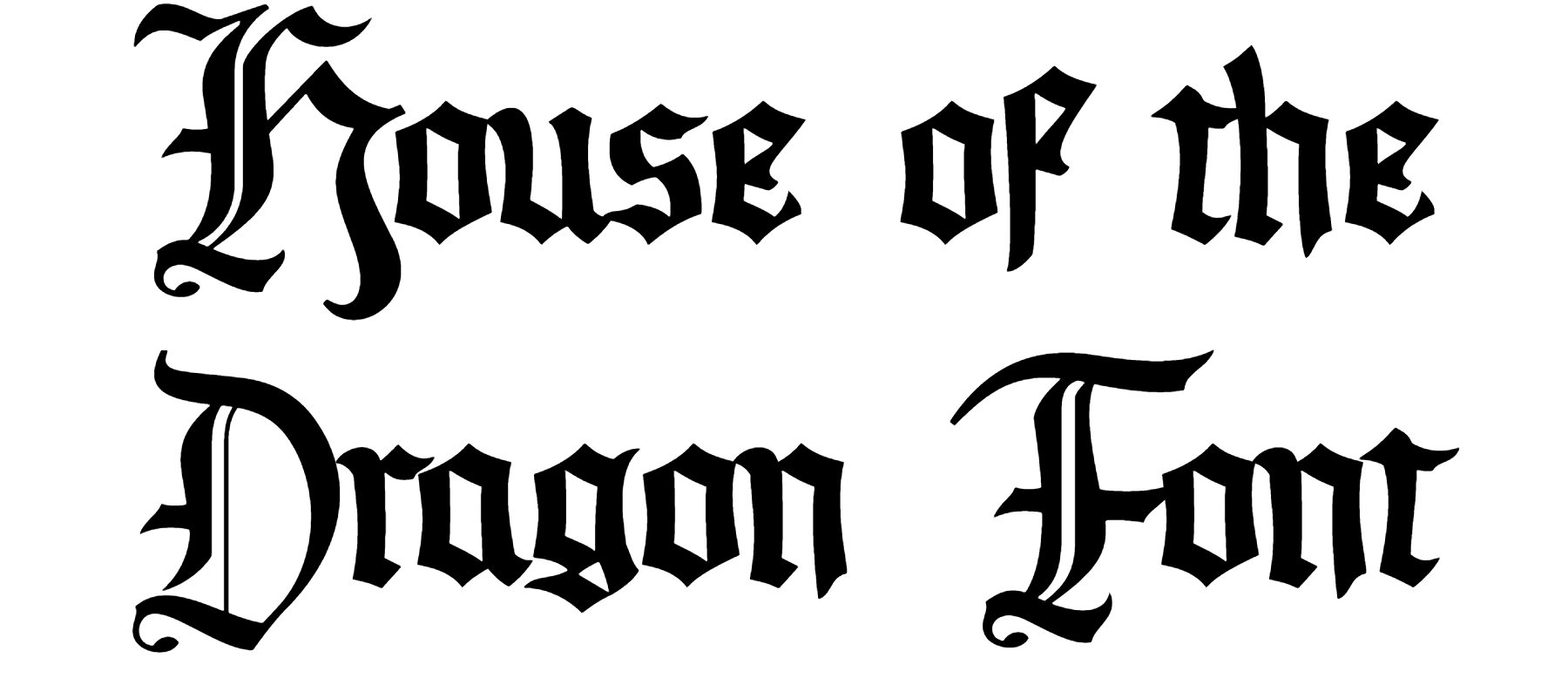
House of the Dragon
House of the Dragon is a gothic font created by Mans Greback and released through Mans Greback AB (2021). Sharp, dark and dramatic, it follows the blackletter tradition of old European manuscripts. The free download includes four styles, and you can try every one of them with your own text in the preview above.
House of the Dragon Font Details
- Font styles: 4 (Regular, Bold, Deco and Outline)
- Glyphs: 1,111 in the Regular style
- OpenType features: Ligatures (including optional ones), 7 stylistic sets, small caps, old-style numbers and fractions
What You Can Type With House of the Dragon
You get every letter from A to Z in both cases and all the numbers from 0 to 9, which means House of the Dragon can handle full sentences, dates and prices. Everyday marks like &, !, ? and @ are there too. Thanks to its accented letters, it also works for Spanish, French, German, Portuguese and Italian, not just English.
Where House of the Dragon Works Best
Designers usually reach for fonts like House of the Dragon when they're making tattoos, metal band logos and dark fantasy titles. Its lowercase letters are tall compared to the capitals, which keeps it readable at smaller sizes. Blackletter is very hard to read in all caps, so type in normal upper and lowercase. Because the family has more than one style, you can mix them in a single design for headings, subheadings and highlights.